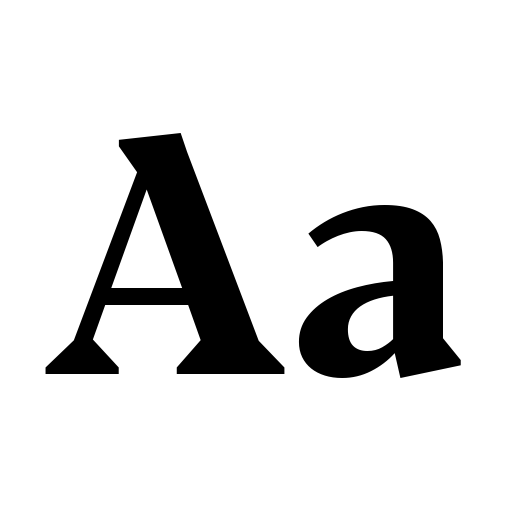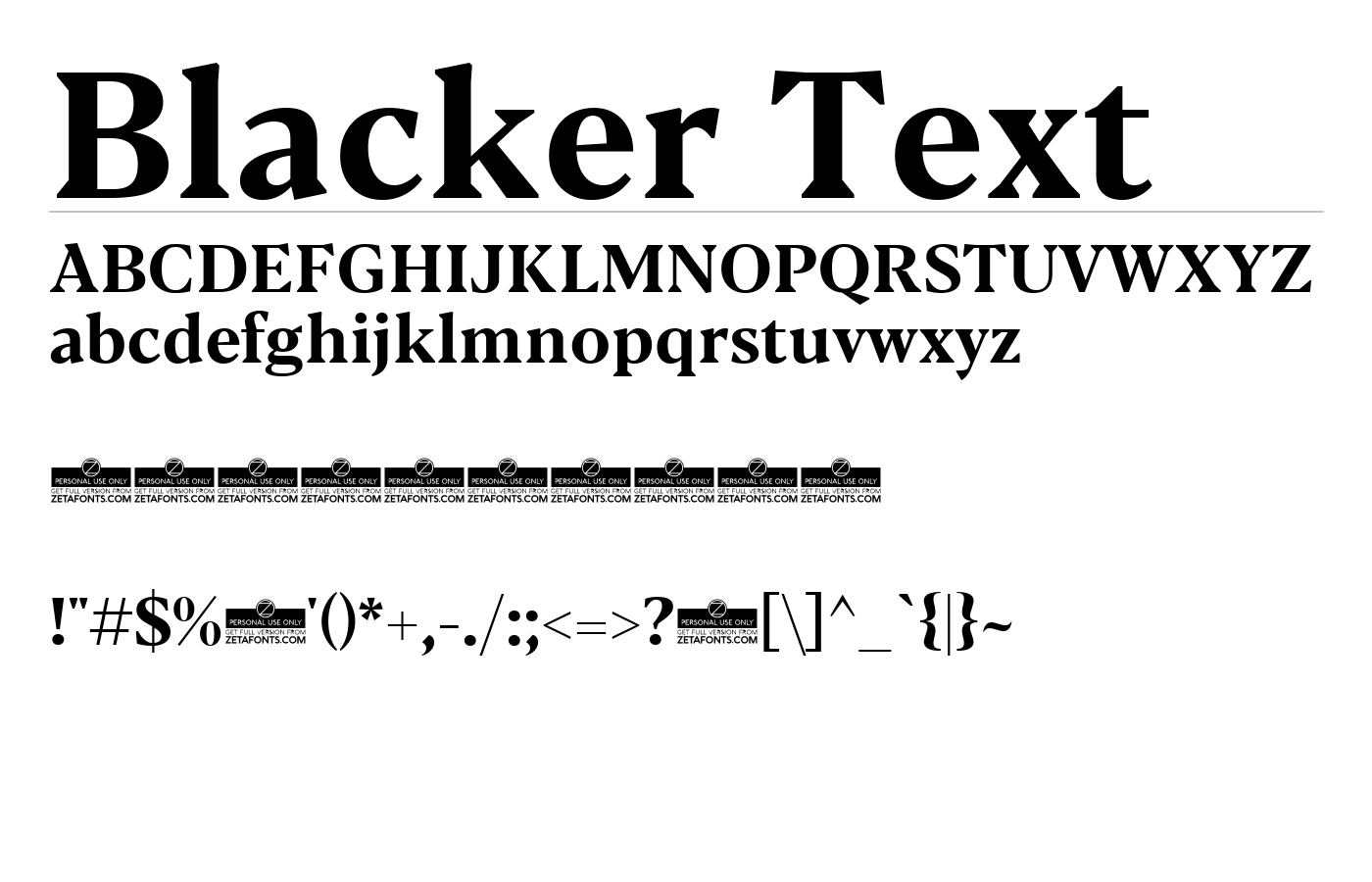
Blacker Text is a sturdy serif font with a strong, classic feel, characterized by its bold weight and high contrast between thick and thin strokes. Its sharp, bracketed serifs and traditional letterforms give it an authoritative yet elegant style, making it ideal for editorial use, headlines, and branding projects that require a reliable and refined look. This font works especially well in contexts where clear readability and a touch of sophistication are essential.
Blacker Text Font
About Blacker Text Font
| Designer | Cosimo Lorenzo Pancini & Francesco Canovaro |